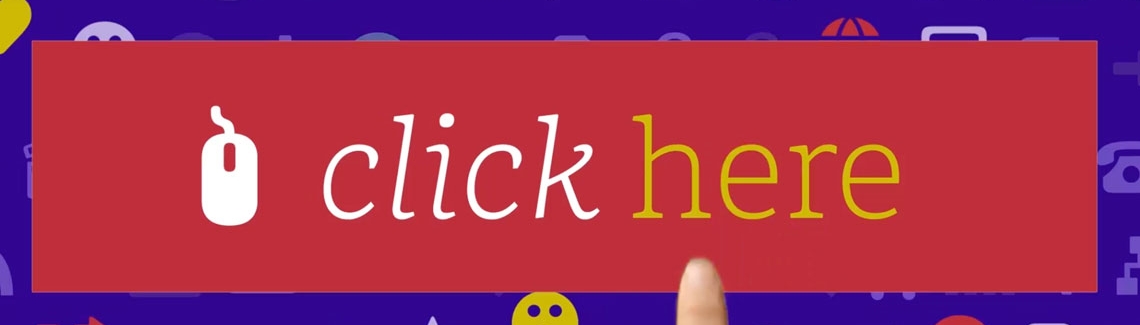
Portada in motion
A rarity for screens: a serif family purposely created for long reading and superlative UI performance.
Designed for superlative performance in long-form reading on screens, in UI, and in apps, Portada is a serif font family and icon set that’s as clear and readable as a sans in restrictive digital environments.
Discover Portada’s styles, details, and full range of icons in this in this adventurous video.
Type Design: Veronika Burian & José Scaglione